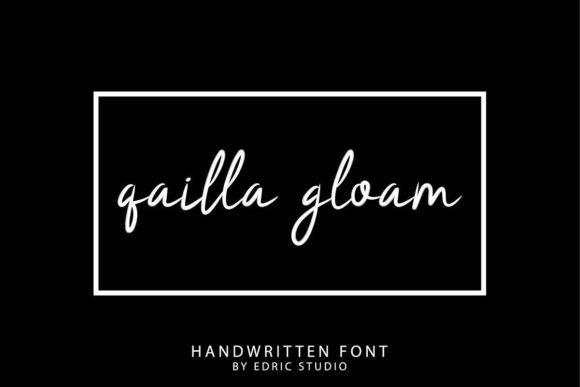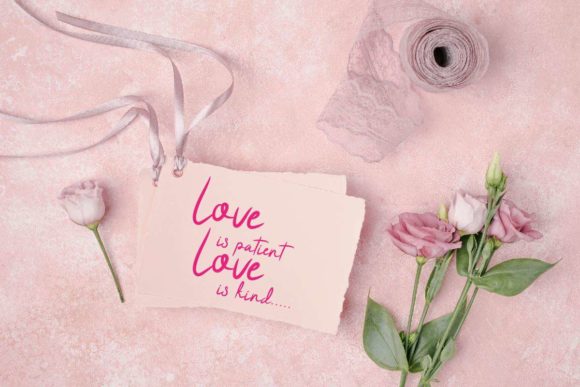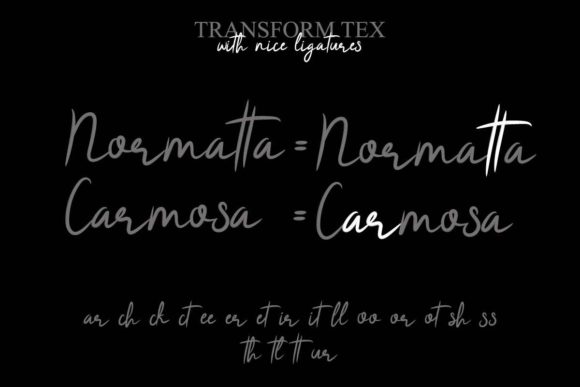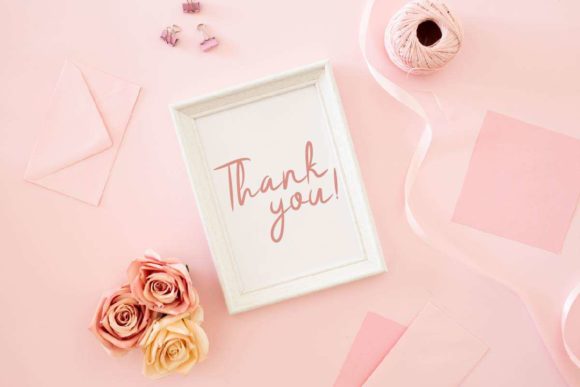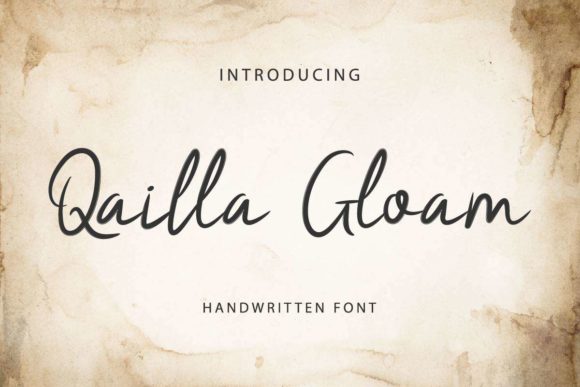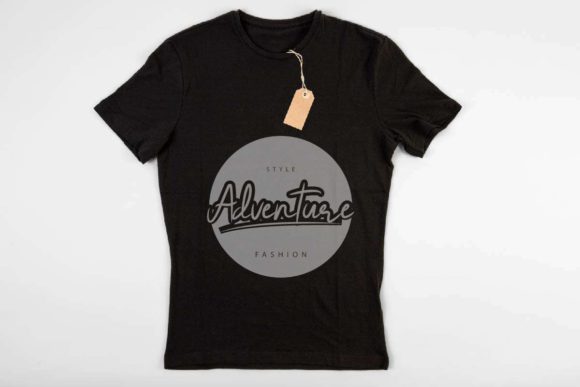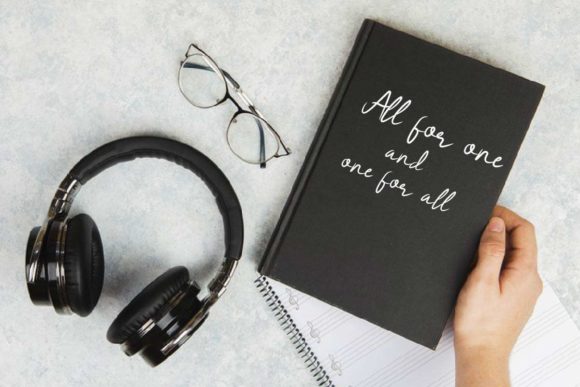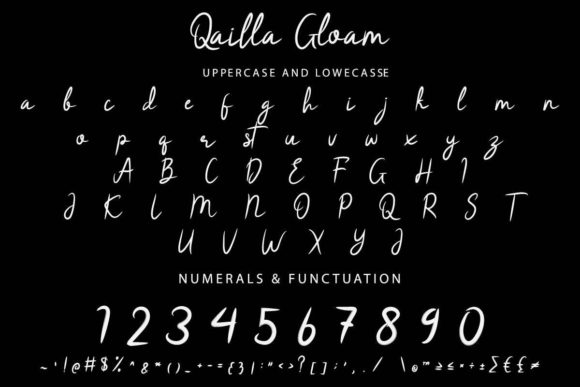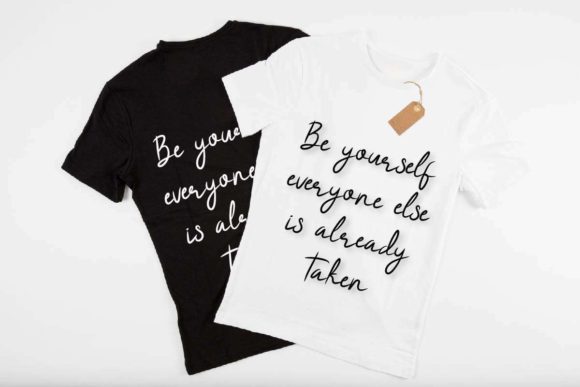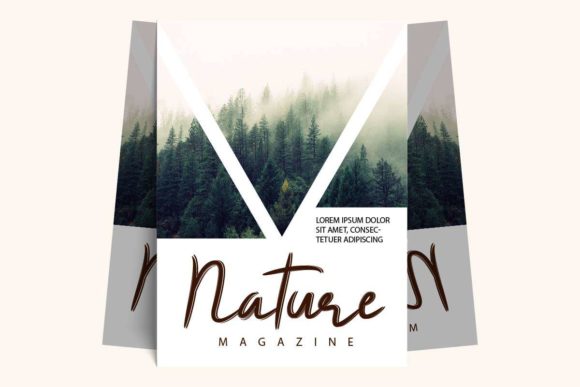
Qailla Gloam Font
About Qailla Gloam Font
Qailla Gloam is an elegant, fun script font, created by using a brush pen. This font is the perfect fit for all of your logos, branding, social media, and crafty DIY projects.